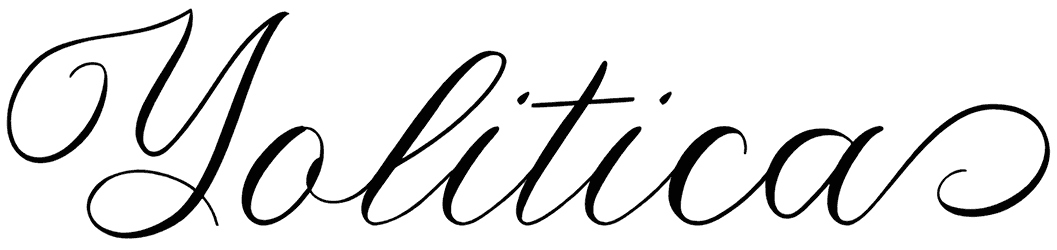
Yolitica Font
Yolitica alone can be enough to add beauty and splendor to any writing. This calligraphy font has a natural and elaborate texture that displays intricate details in each character. So if you’re looking to create an artistic aesthetic in a place that needs text, this sexy font can provide you with many options for designing posters, love letters, wedding cards, and heartfelt greetings.